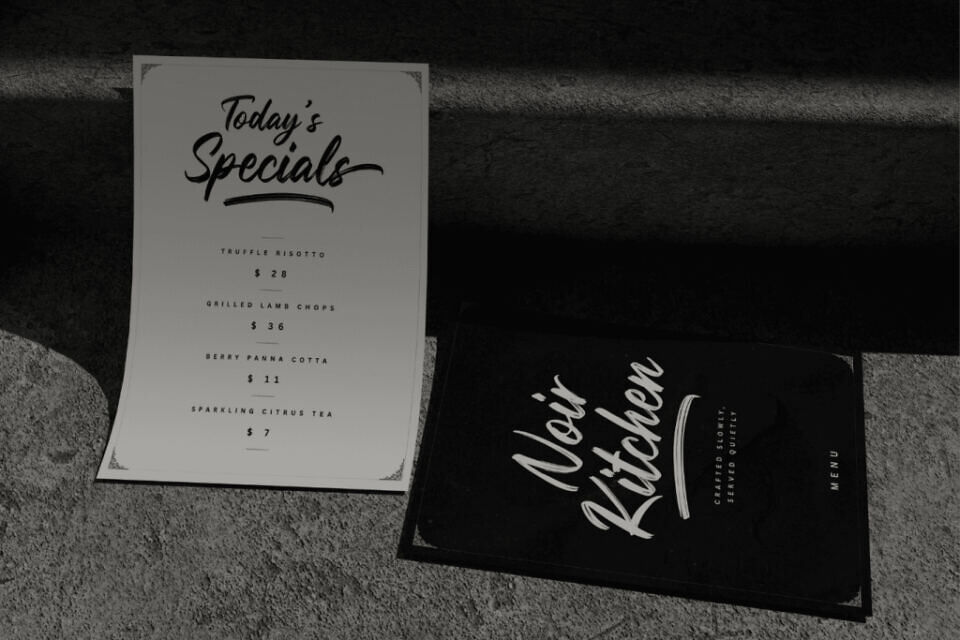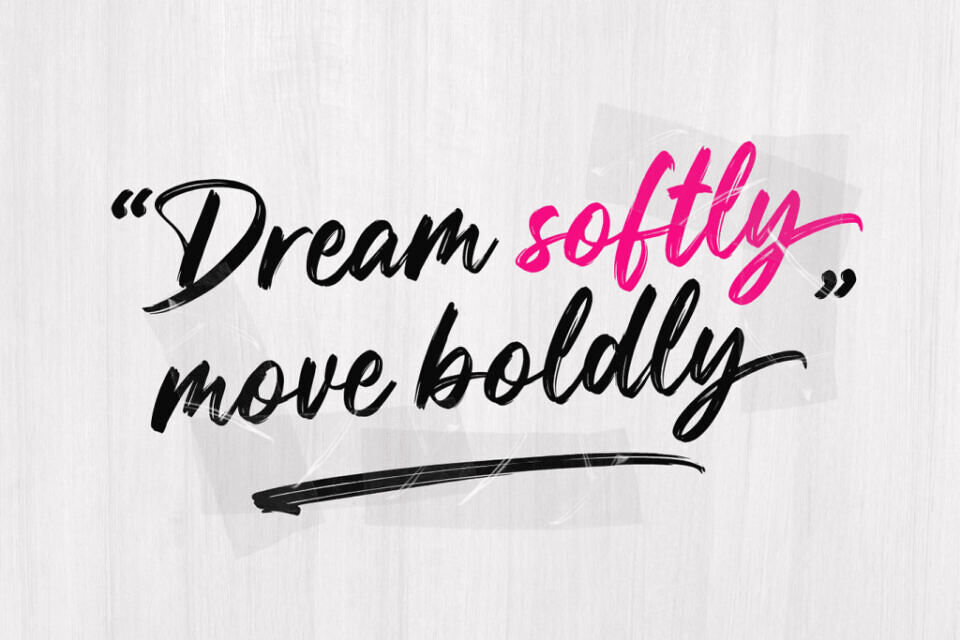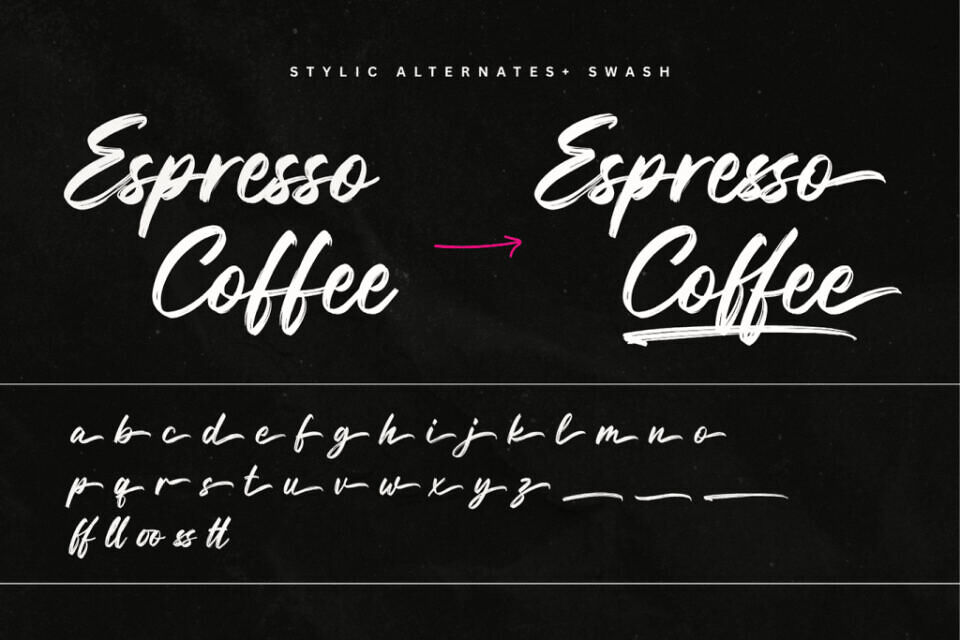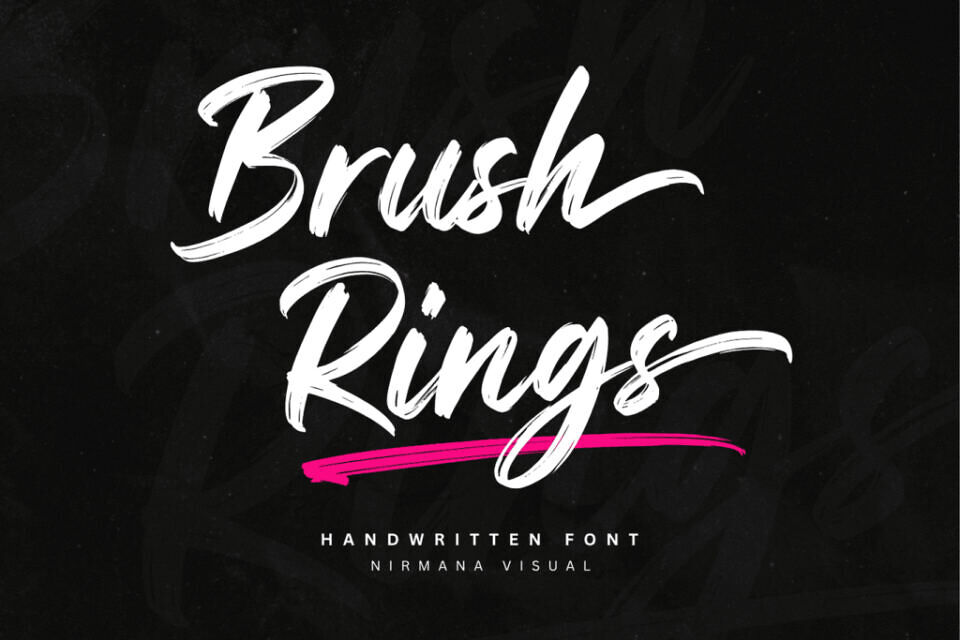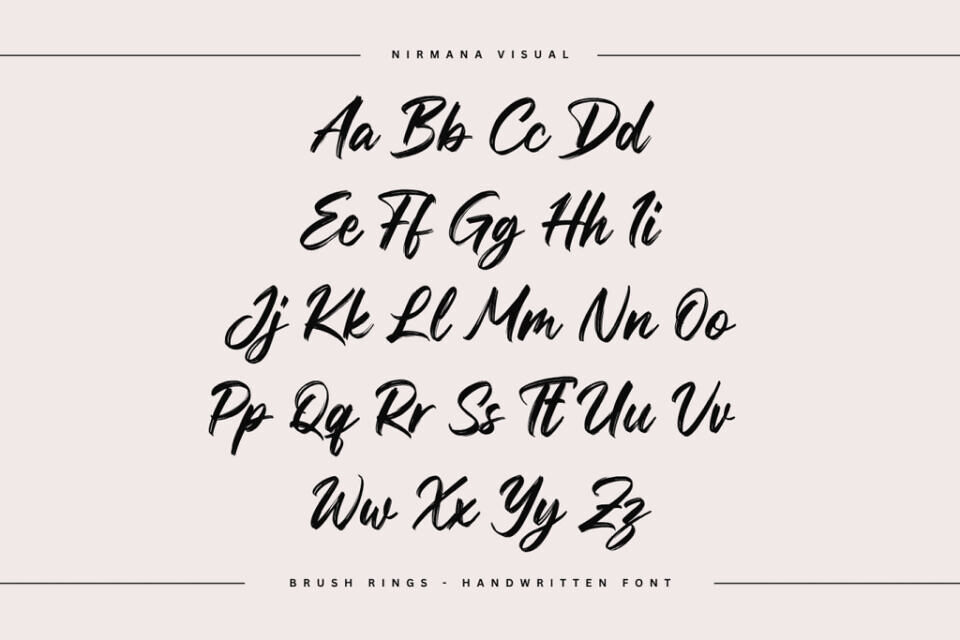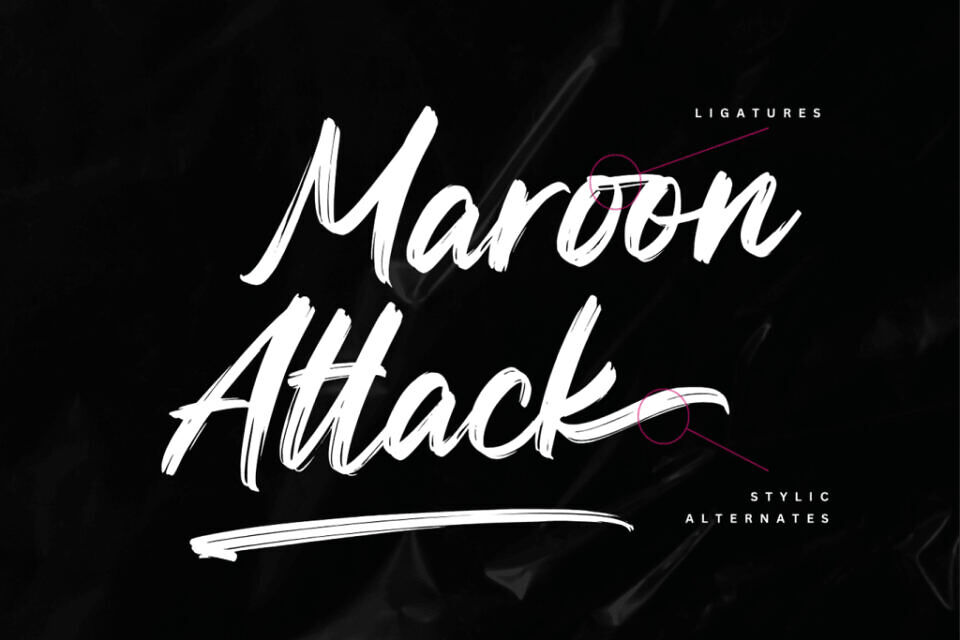
Brush Rings Font
Introduce a touch of raw energy and authentic craftsmanship to your designs with Brush Rings, a premium handwritten font designed by Nirmana Visual.
Crafted with realistic textures and organic strokes, this font perfectly captures the expressive, free-flowing motion of a real paintbrush. Its bold weight and sweeping swashes give it a commanding presence, while the subtle dry-brush imperfections add a rustic, street-style edge.